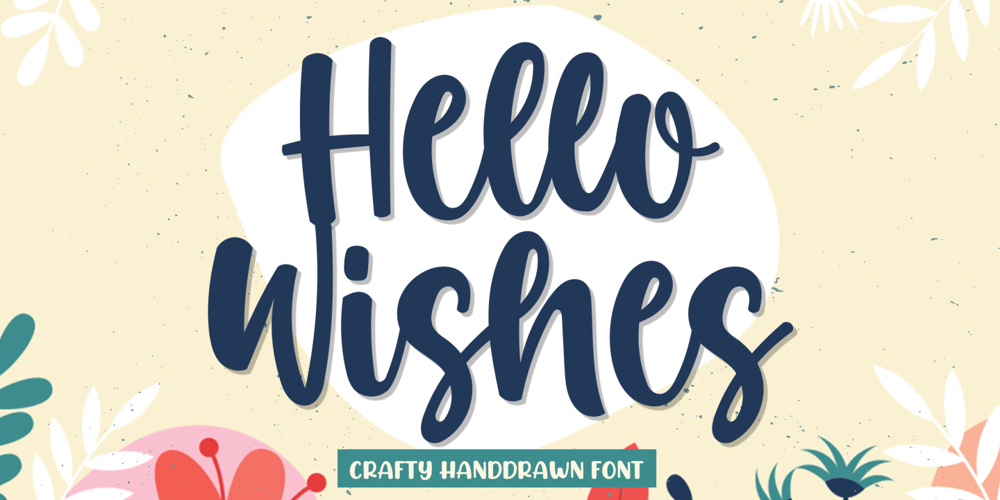
Hello Wishes Font Family was designed by Good Java and published by Good Java Studio. Hello Wishes contains 1 styles and family package options. Produly Present Hello Wishes a Crafty Font make from handlettering ideas in typeface. This font includes full of Alphabetical glyphs, Numerals, and punctuation. This is so perfect for invitations, monograms, wedding, fashion, branding, label, handlettering or logotype.